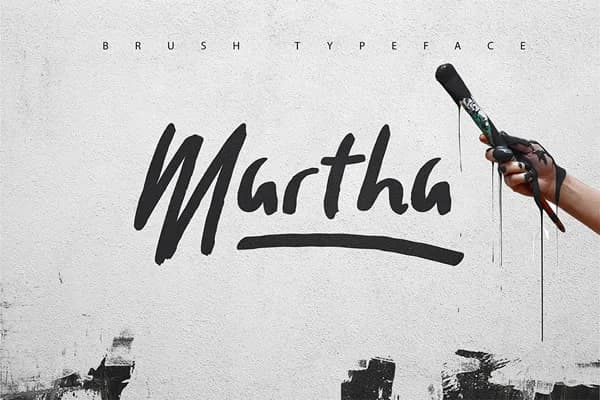
About Martha Font
Martha Font by SmartDesigns is a hand-lettered script that brings understated sophistication to modern creative work. Available in bold and light weights, this typeface delivers the personal warmth of handwritten letterforms without sacrificing versatility across different design contexts and applications. This font shines when used for wedding invitation suites, where its organic strokes add genuine character and authenticity to formal announcements. It's equally suited to greeting card designs, boutique product packaging, and custom signage where a touch of handcrafted aesthetics strengthens brand recognition and customer connection. The varying weight options let designers shift visual emphasis, use the bold version for headlines and attention-grabbing text, and the lighter weight for secondary content and supporting information that needs more delicacy. Martha Font integrates smoothly with design platforms like Adobe Creative Suite and Canva, and it's compatible with vinyl cutting and heat transfer equipment for anyone working with physical media and merchandise production. Whether you're crafting personalized gifts, designing Etsy product listings, building cohesive branding materials, or creating DIY craft signage, this script offers the stylistic appeal that captures attention while remaining practical for professional production work and small-batch manufacturing. The authentic handwritten quality works especially well for lifestyle brands, artisan packaging, and any design that needs to convey personal care and attention to detail. Add Martha Font to your collection on Creative Fabrica and bring this elegant script into your design practice.
Martha Font is a script font that shines as a display or heading face. Pair it with a clean sans-serif or serif font for body text β the contrast creates a clear hierarchy while the two styles stay balanced and easy to read.
Martha Font